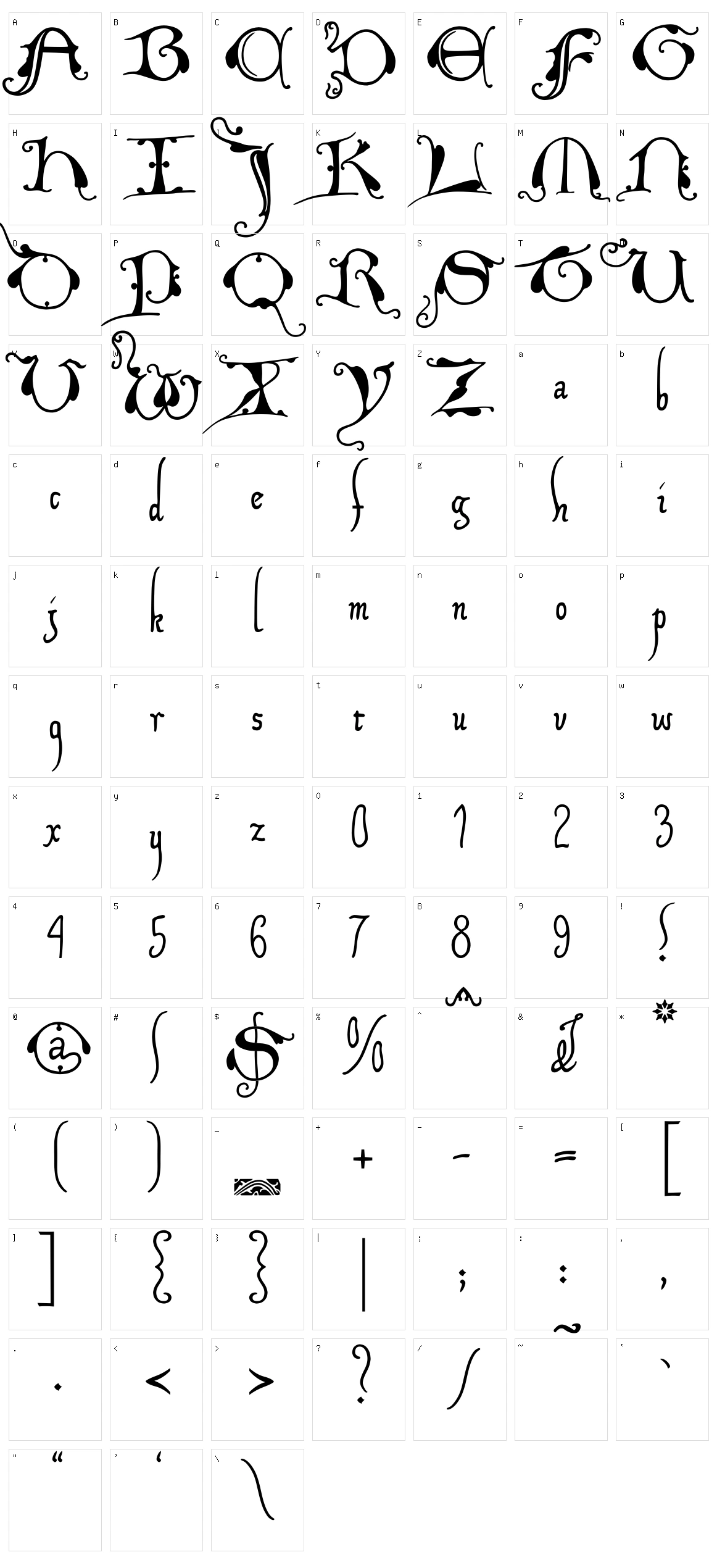
Xiparos Lombard
Designed by: Pia Frauss
Category: Various & Gothic
XiparosLombard 1.0
-- created by Pia Frauss in 2005, with High Logic's FontCreator Program --
As to its lower case characters, the XiparosLombard font is identical with the XIPAROS font -- apart from the d, which has been replaced by a straight version. The upper case alphabet, however, consists of Lombardic capitals. Since they were taken out of a book some three hundred years younger than the charters that provided the lower case, they are much less austere, and much more rounded than contemporary ones would have been.
The XiparosLombard font contains no decorations, and you'll find all the brackets, curly brackets, and greater/less signs here that are lacking in the XIPAROS font, as well as the +, =, and bar sign. Do I have to mention that the number sign has taken the shape of a long s?